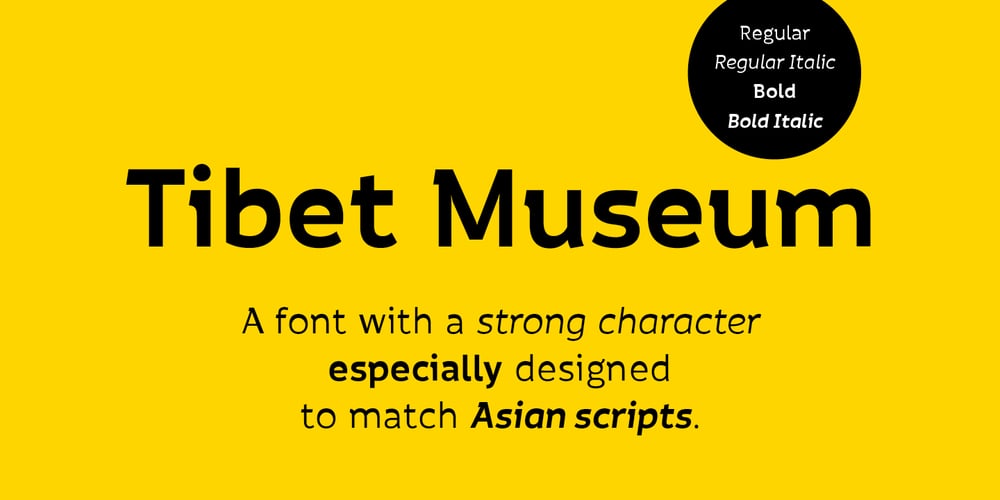
Tibet Museum
Tibet Museum font
Tibet Museum Font Family was designed by Markus Strümpel and published by Designpiraten. Tibet Museum contains 4 styles and family package options. The Tibet Museum fonts are designed for harmonic layouts of multilingual texts, especially for the combination with asian fonts such as Tibetan or Devangari. Tibet Museum is a family of four fonts – Regular, Bold, Regular Italic and Bold Italic – that combines the shapes of Tibetan letters with a contemporary western font. The result is a unique set of characters that allows the design of multilingual applications and adds to an outstanding identity. It is perfect for branding projects as well as editorial and exhibition designs. The fonts contain a set of more than 400 glyphs to support 207 languages.